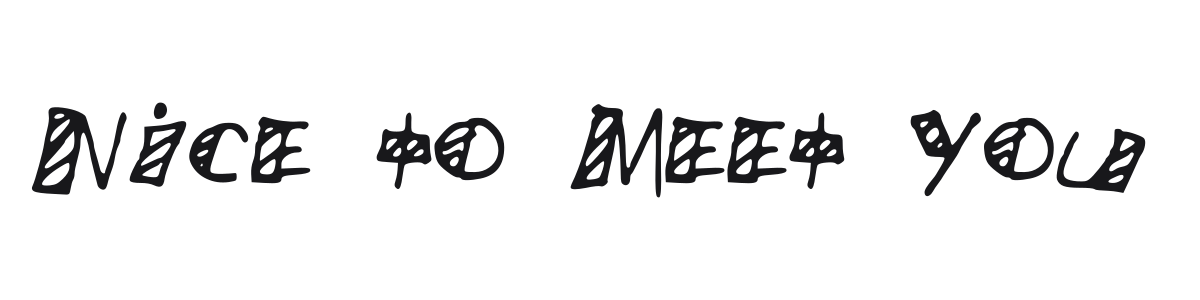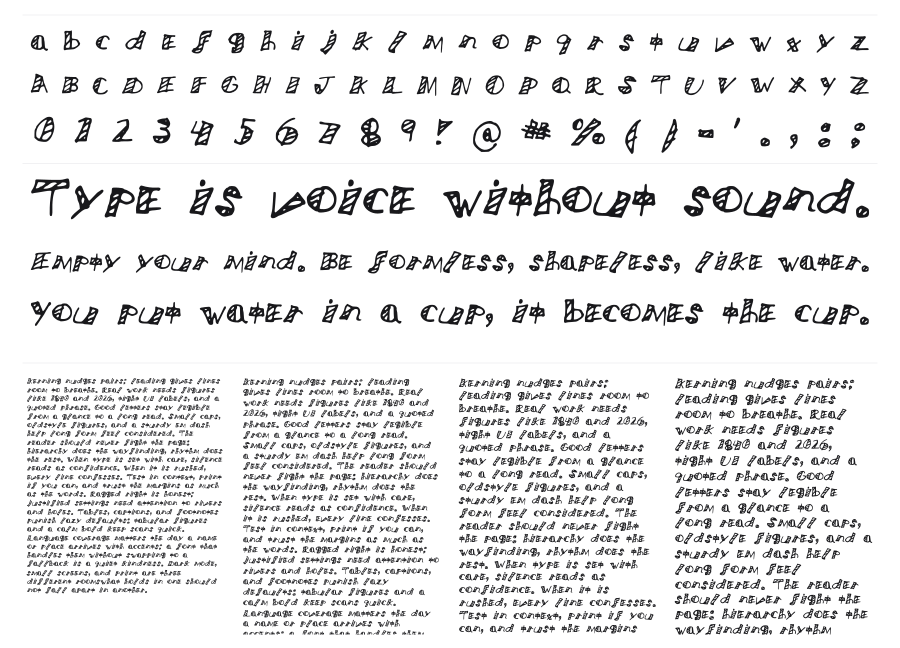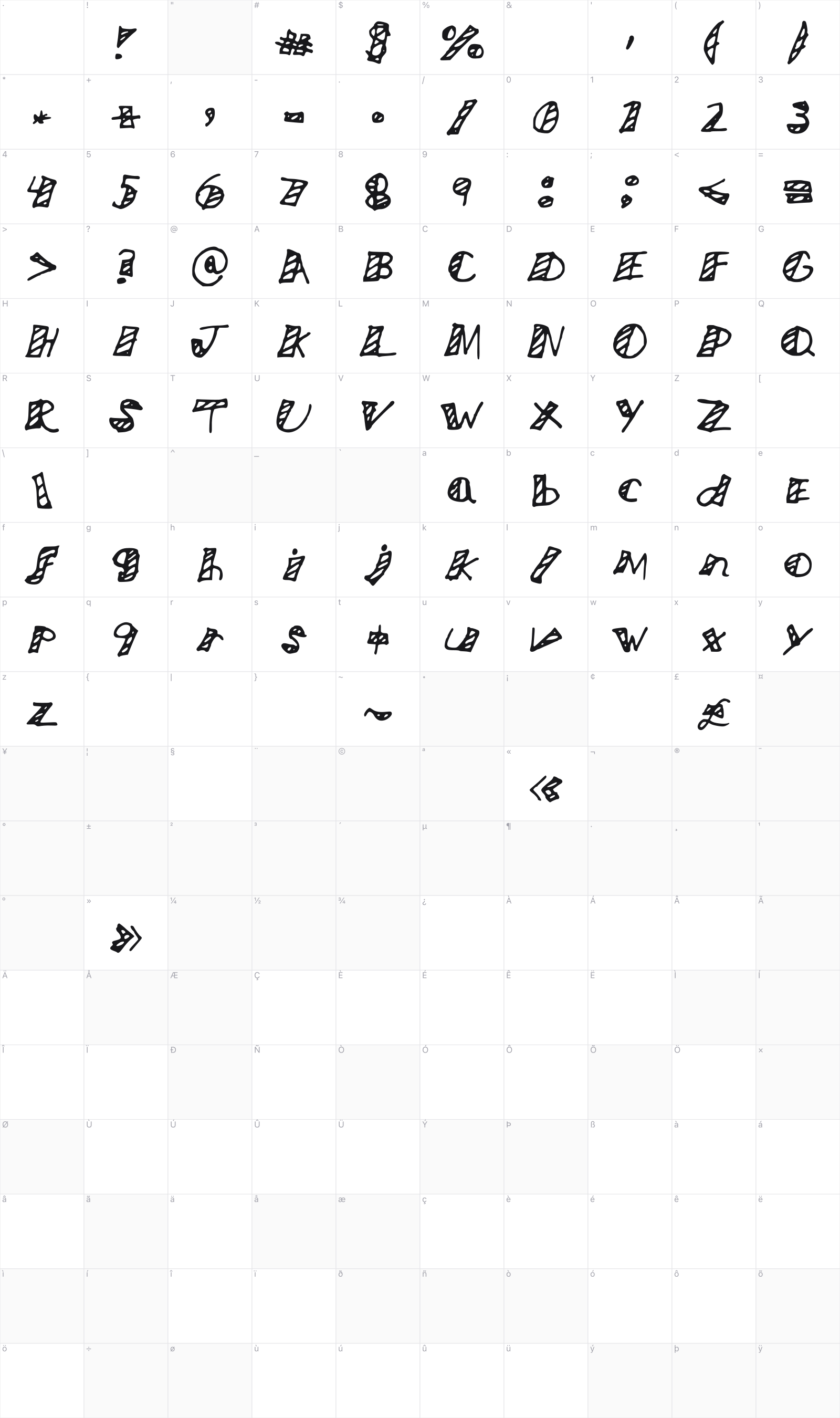
Nice to Meet You
Nice to Meet You is a bold, scratchy handwritten script with a strong italic lean and deeply textured strokes filled with hand-drawn hatching marks. The irregular characters feel like they were carved or scrawled rather than written, giving it a raw, unmistakably personal energy. It works best at large sizes where the texture detail can breathe.